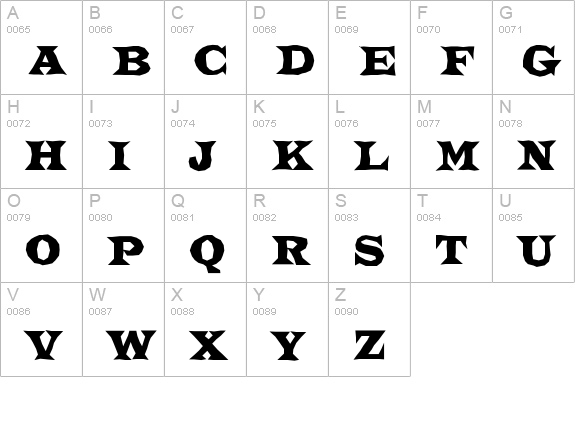
a_TrianglerBrk Font Details
Introducing TrianglerBrk, a modern and stylish font perfect for adding a touch of sophistication to your design projects. This font features sleek lines and sharp angles that create a dynamic and eye-catching look. TrianglerBrk is ideal for logos, branding, headlines, and more. The best part? TrianglerBrk is available for free download at FontsMarket.com. This means you can easily access this unique font and use it in your projects without any cost. Whether you're a designer looking to elevate your creations or simply someone who appreciates quality typography, TrianglerBrk is a must-have addition to your font collection. Don't miss out on the opportunity to enhance your designs with the sleek and modern aesthetic of TrianglerBrk. Download it for free today at FontsMarket.com and start creating stunning visuals that stand out from the rest.